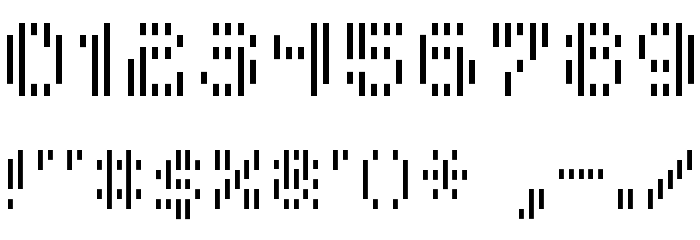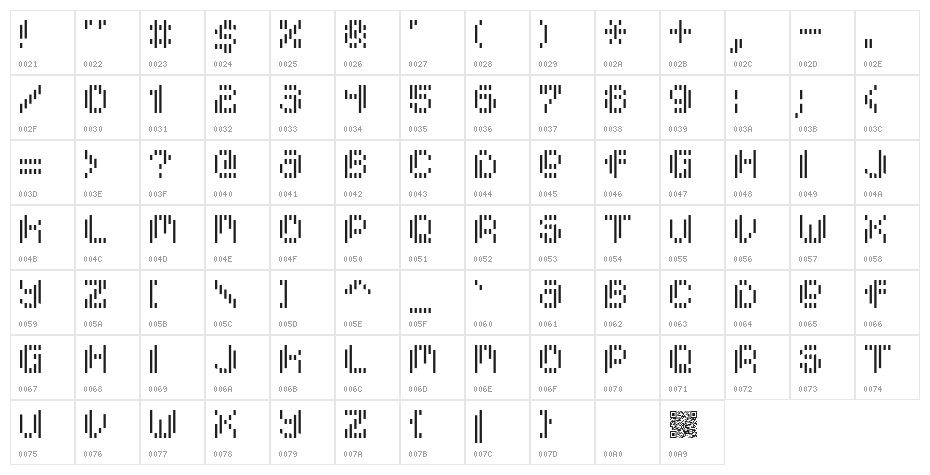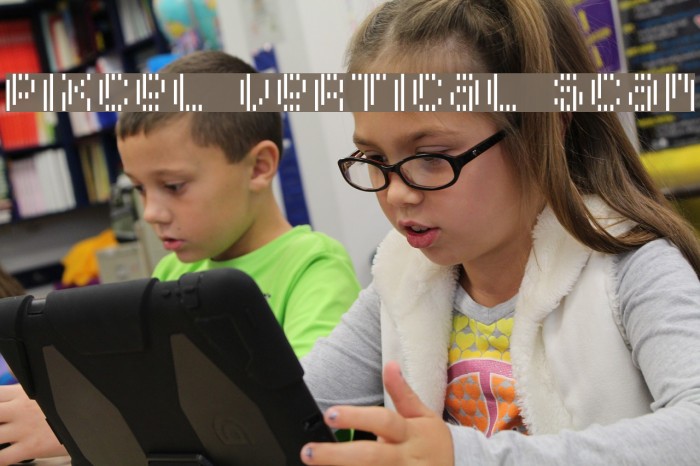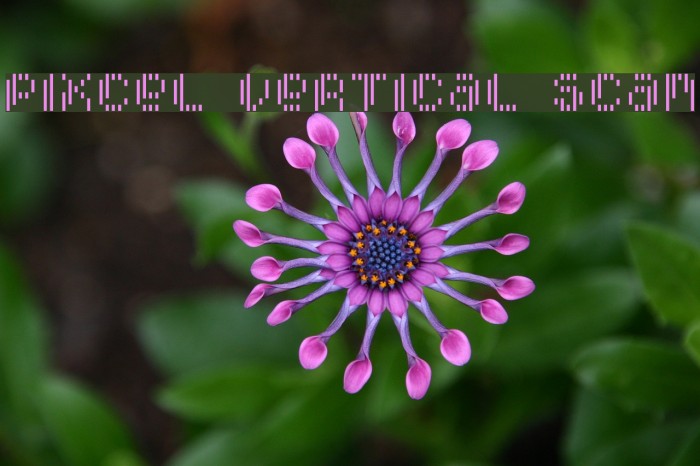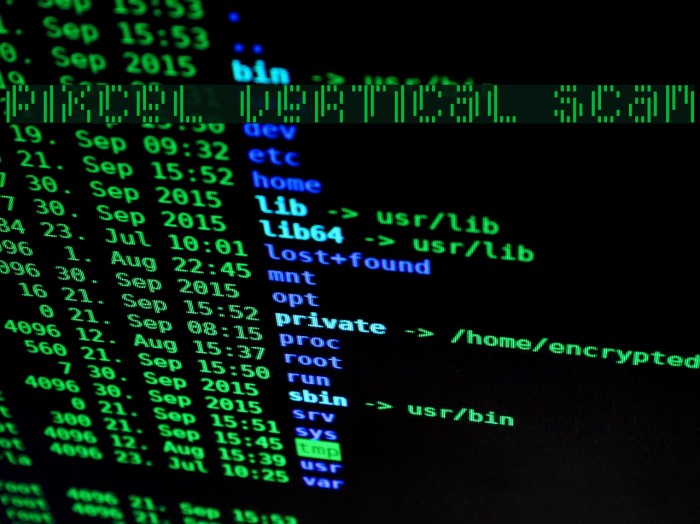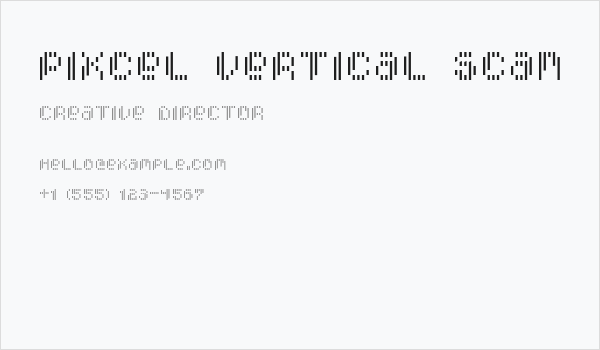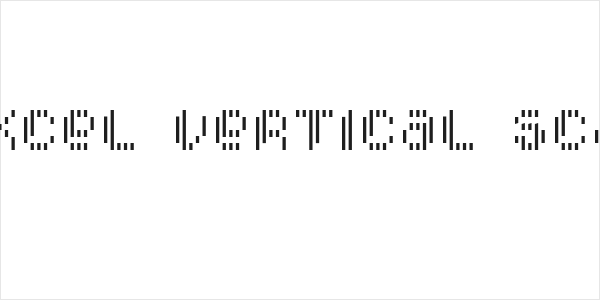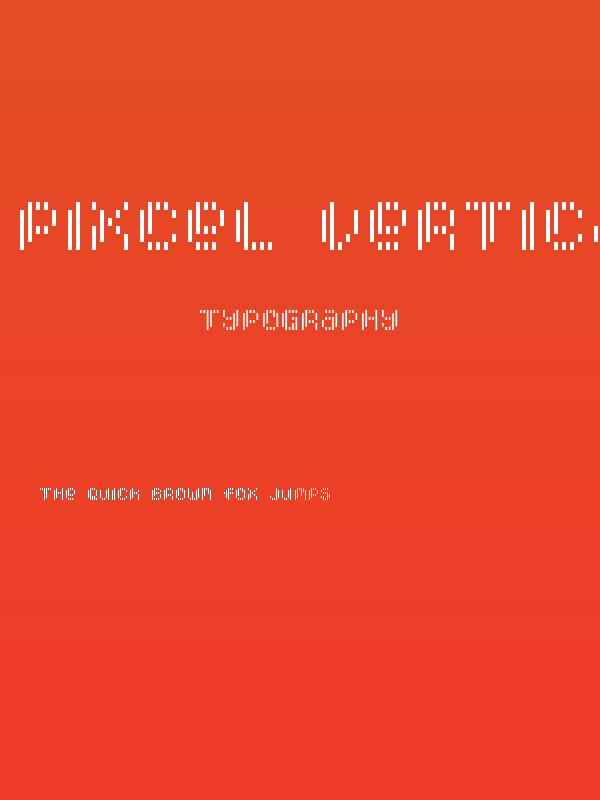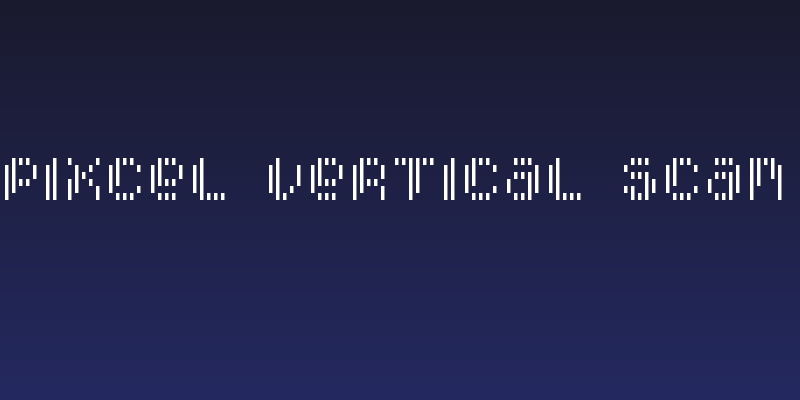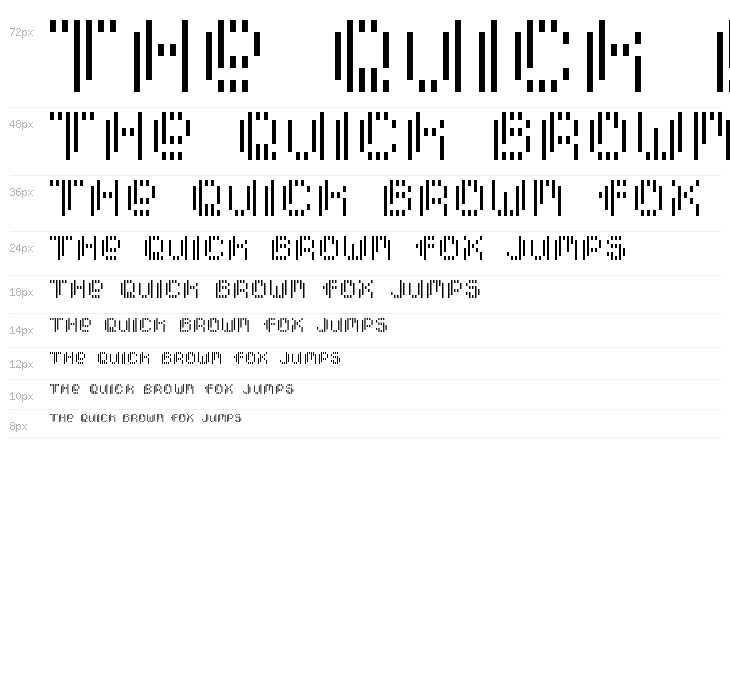
Pixcel Vertical Scan Font
Pixcel Vertical Scan Description
This font features a pixelated, vertical scan line style, reminiscent of digital displays or retro computer screens. Each character is composed of a grid of small squares, creating a distinct, blocky appearance. The uniformity in height and width across characters contributes to a cohesive and structured look. The font maintains a consistent spacing between characters, ensuring readability despite its unique design. The absence of curves and the reliance on straight lines and right angles give it a mechanical and futuristic feel. This style is particularly effective for conveying a sense of technology or digital environments.
| Overall Style | Futuristic, Retro |
| Use Case | Logos, Headlines, Digital interfaces |
| Proposed Projects | Ideal for digital displays, retro-themed designs, tech-related branding, or video game interfaces. |